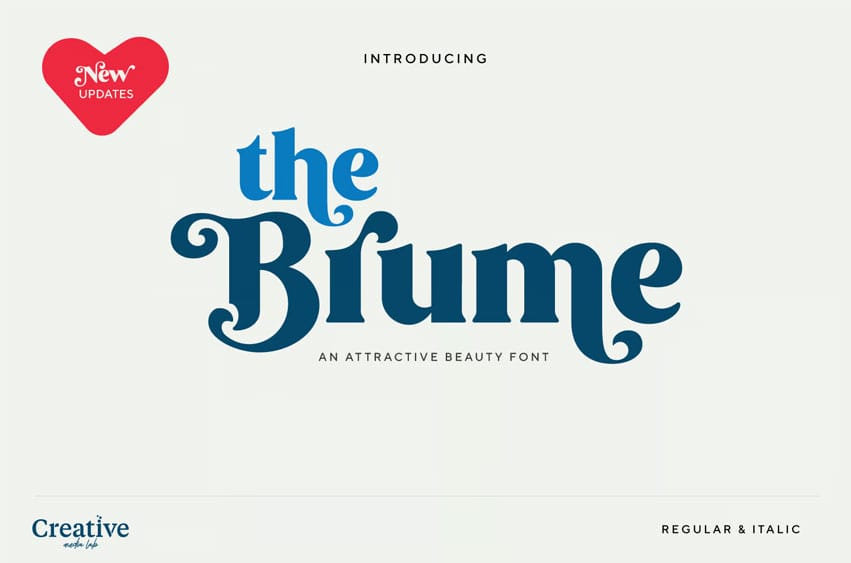
Brume Font offers a modern, elegant, and easy-to-read design that will impress your clients. This font includes both uppercase and lowercase letters, along with many alternate characters featuring beautiful curves. You can easily arrange these characters to create stunning logo lettering or use the font for displays by making a few adjustments for a polished look.
Each character is meticulously crafted with clean lines. Brume Font is ideal for various applications such as logo design, headlines, product packaging, T-shirt designs, wedding themes, posters, book covers, wedding invitations, Christmas themes, and more.